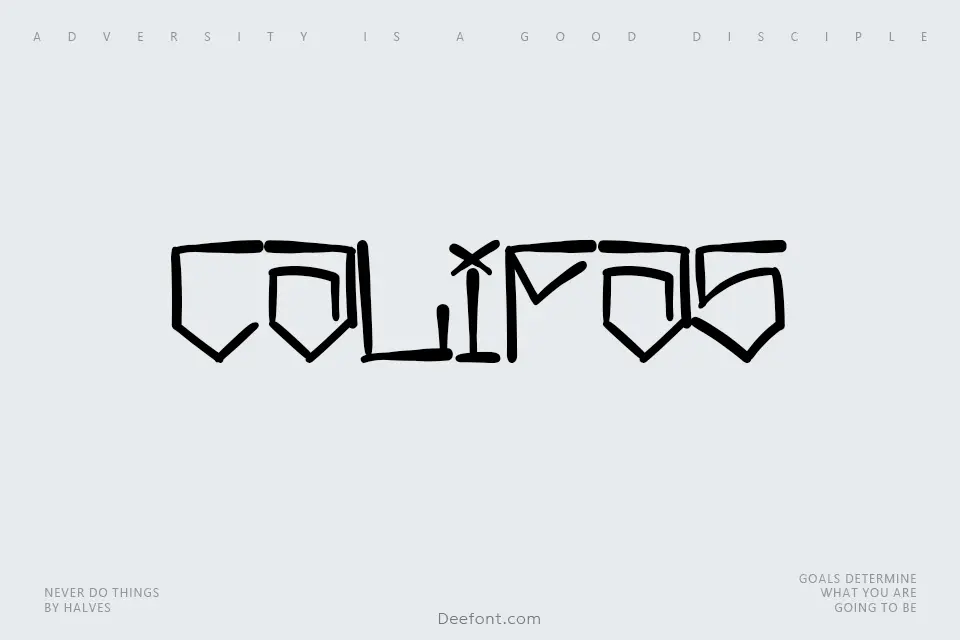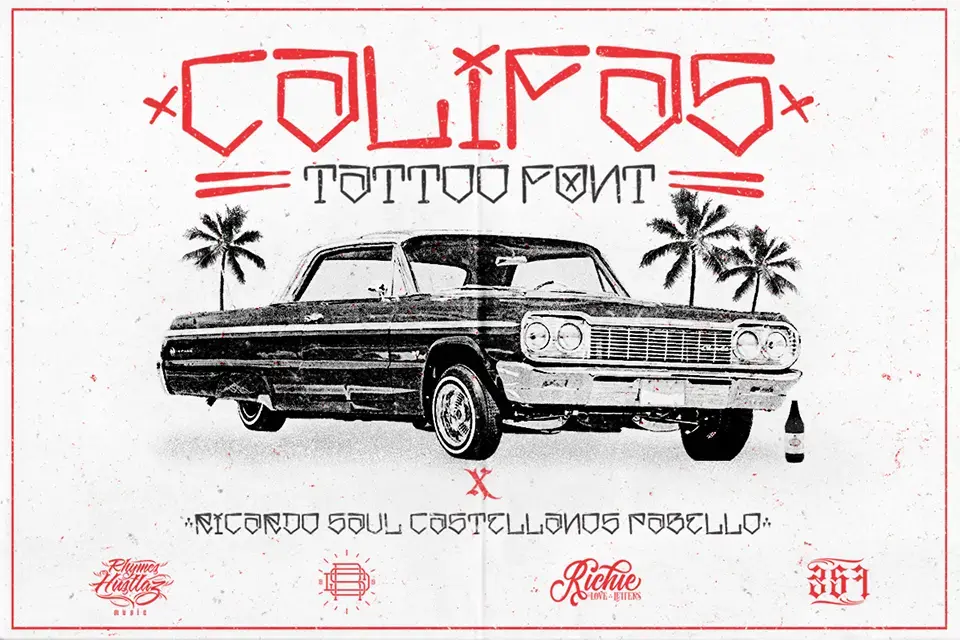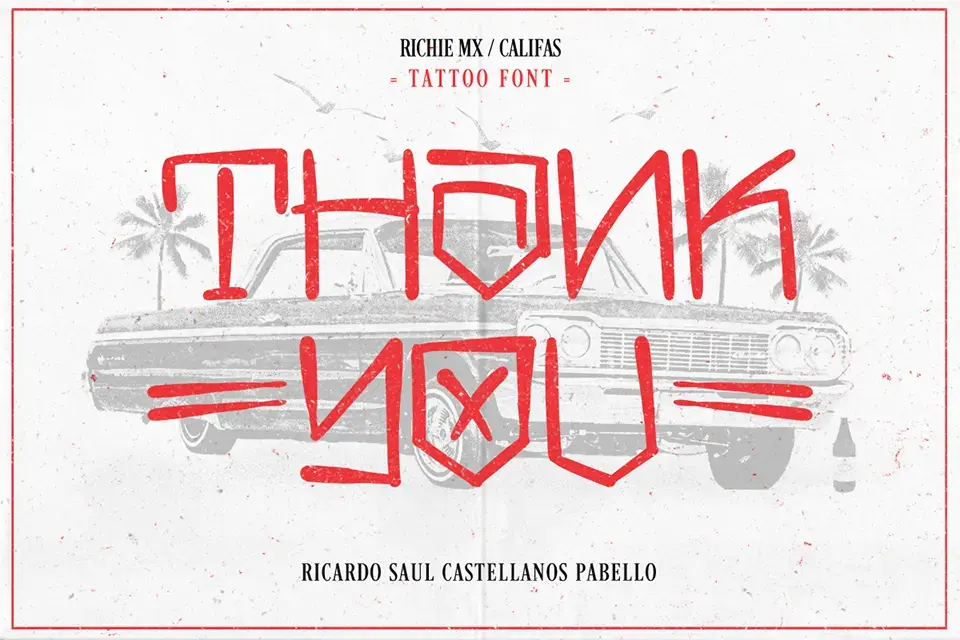
Califas Font
Califas is a distinctive graffiti-inspired typeface created by Richie Mx (Ricardo Saul Castellanos Pabello), showcasing the vibrant urban culture of Chicano and gang lettering styles. This demo font features 236 glyphs with uppercase and lowercase letters that maintain the same visual structure, along with comprehensive punctuation and symbols. Perfect for projects requiring bold street art aesthetics, Califas delivers clean, striking letterforms inspired by west coast urban design traditions. The font supports eleven languages including English, Spanish, Portuguese, German, and Italian, making it versatile for multilingual creative applications.